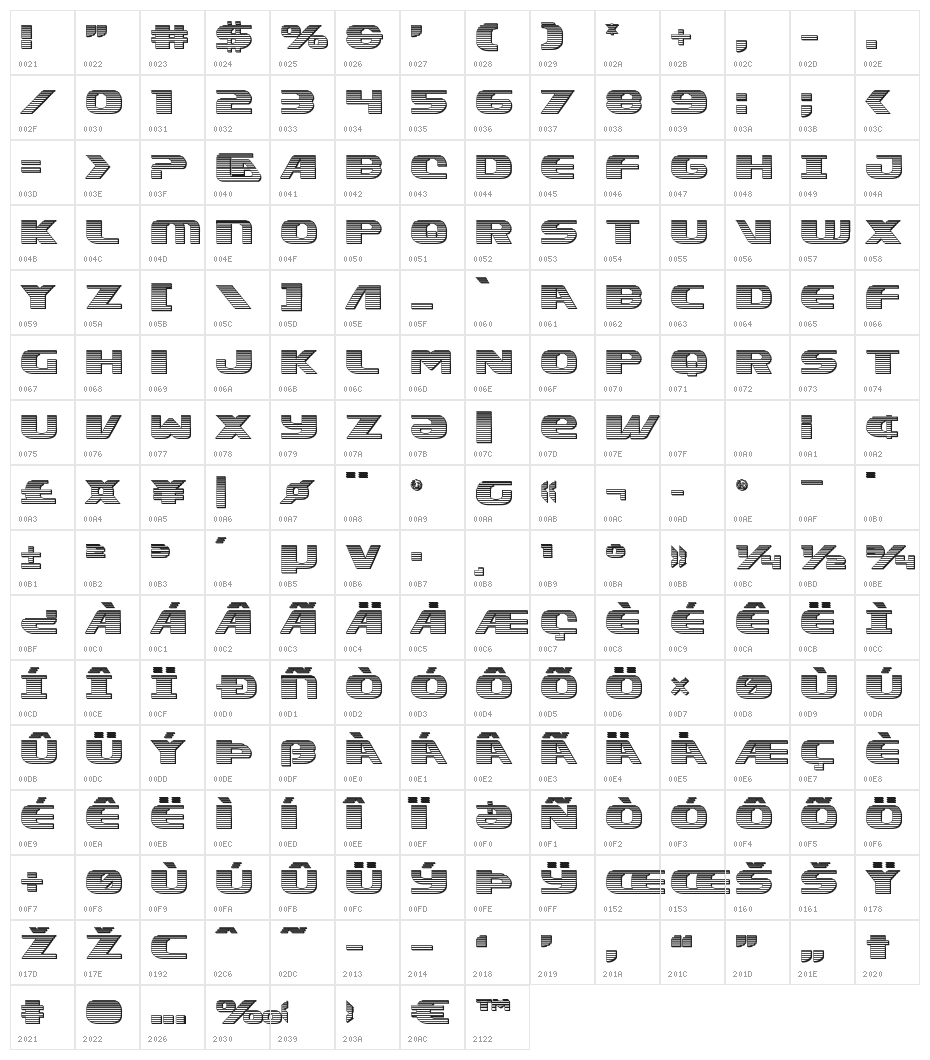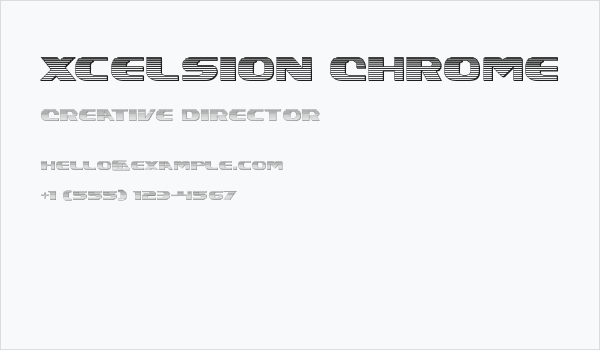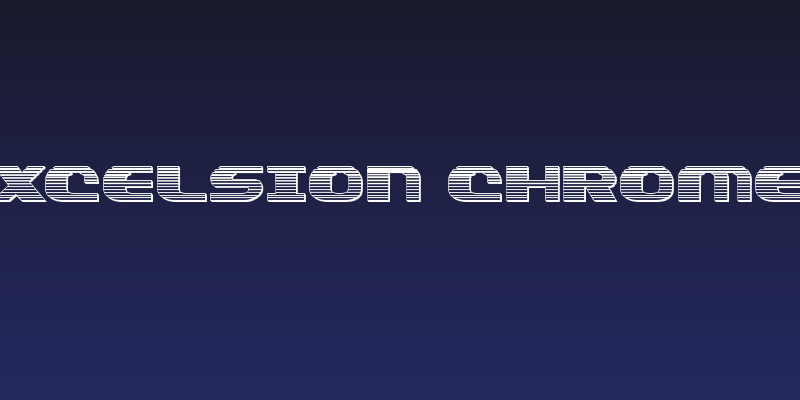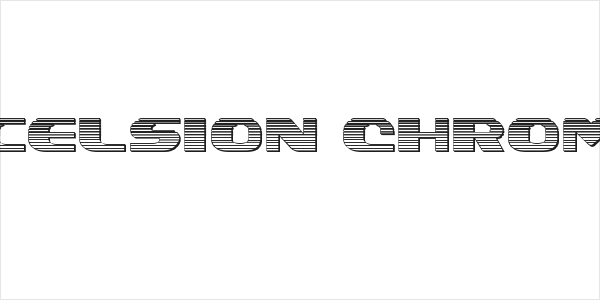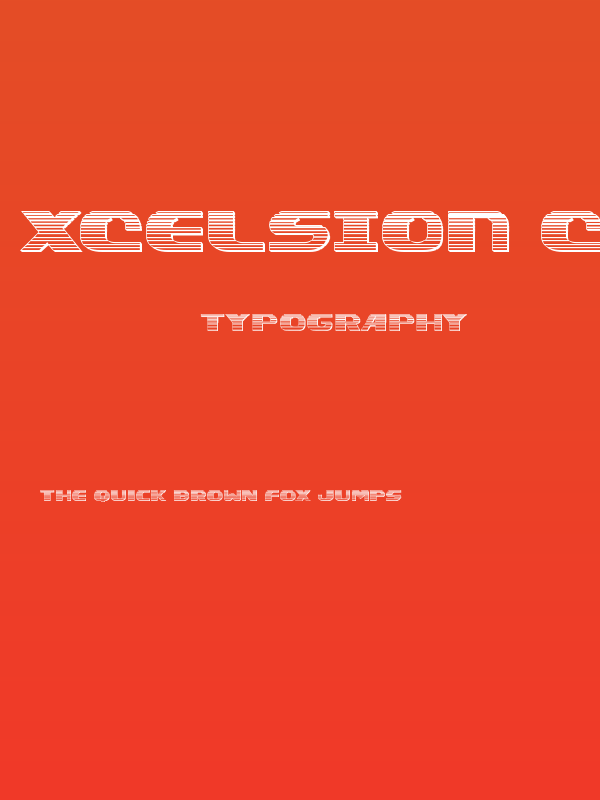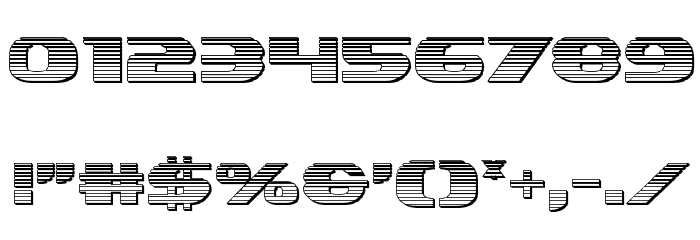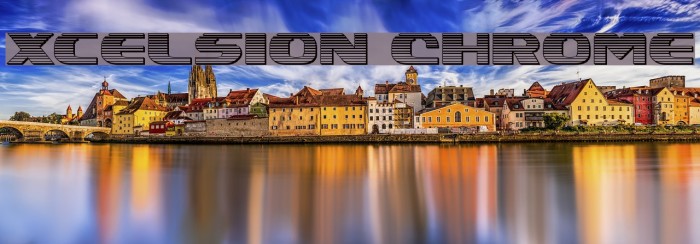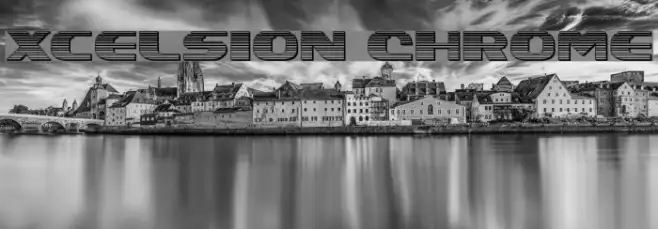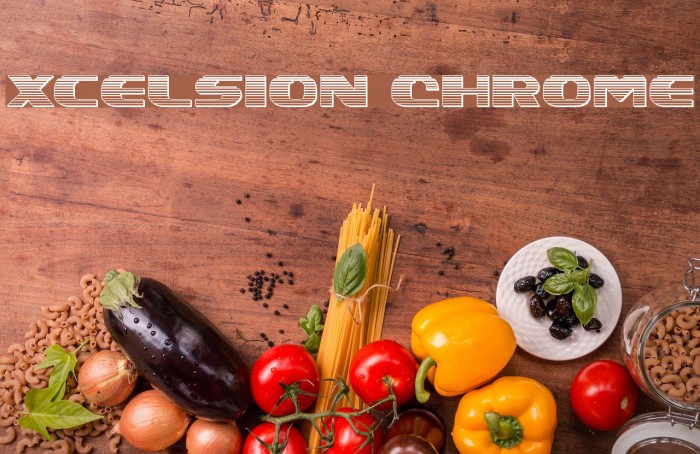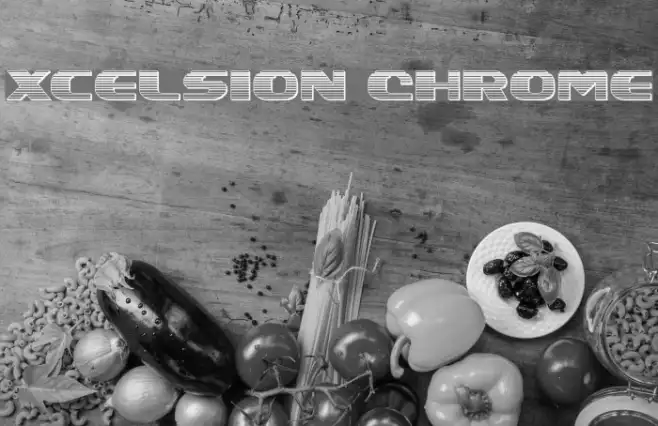
Xcelsion Chrome Font
Xcelsion Chrome Description
This font features a bold, futuristic design with a distinctive striped pattern running horizontally across each character. The geometric shapes and sharp angles give it a modern and dynamic appearance, making it stand out in any design. The uppercase and lowercase letters maintain a consistent style, while the numerals and special characters complement the overall aesthetic. The font's unique style is ideal for projects that require a strong visual impact, such as branding, posters, or digital media. Its boldness and decorative elements make it suitable for headlines and titles, where attention-grabbing typography is essential.
| Proposed Projects | Ideal for branding, posters, digital media, and any project requiring a strong visual impact. |